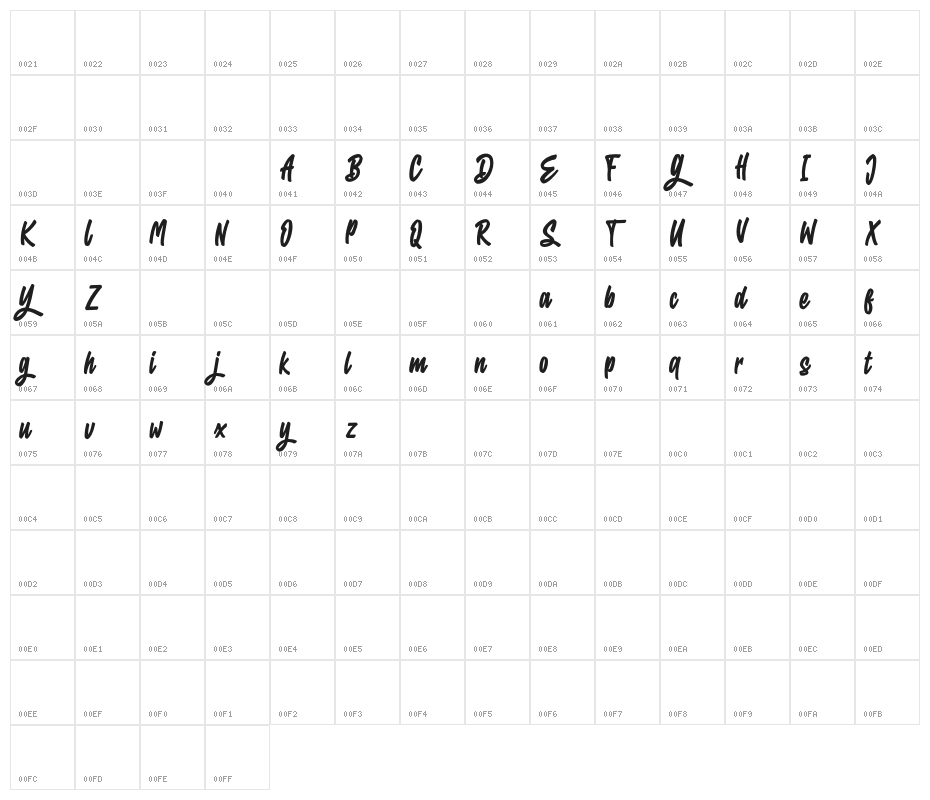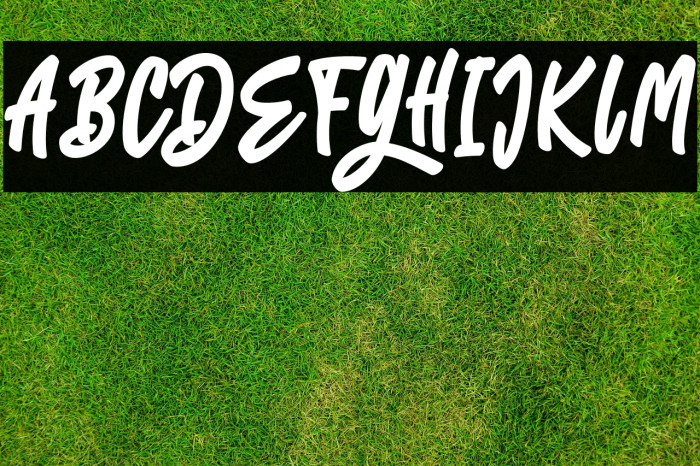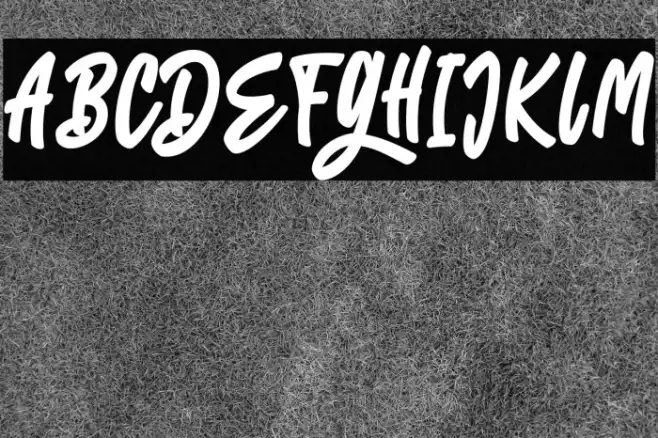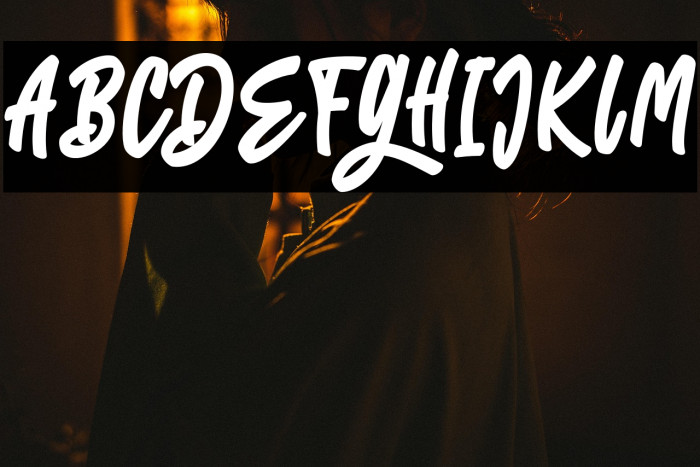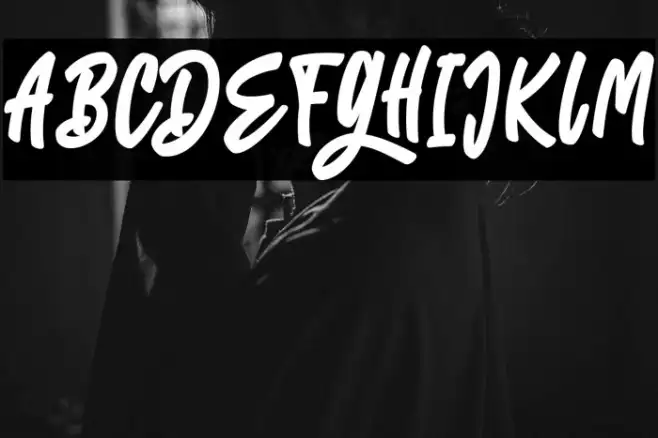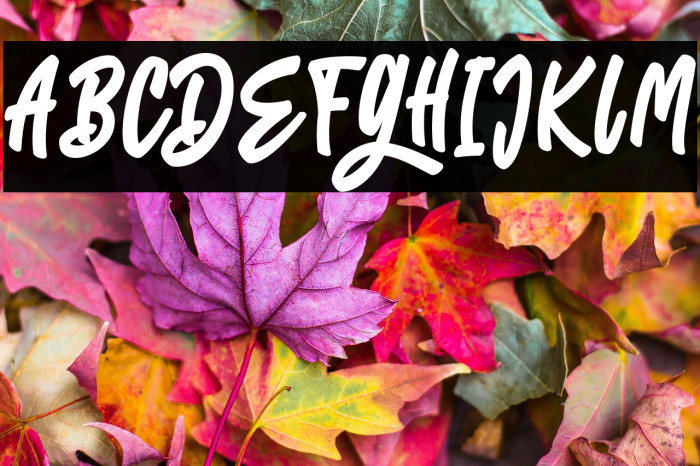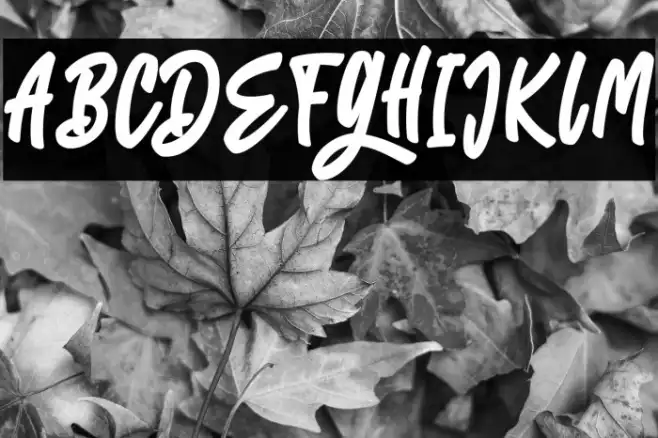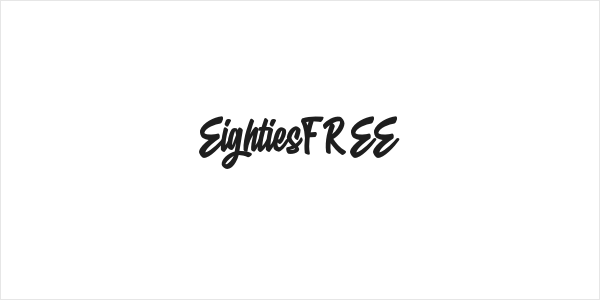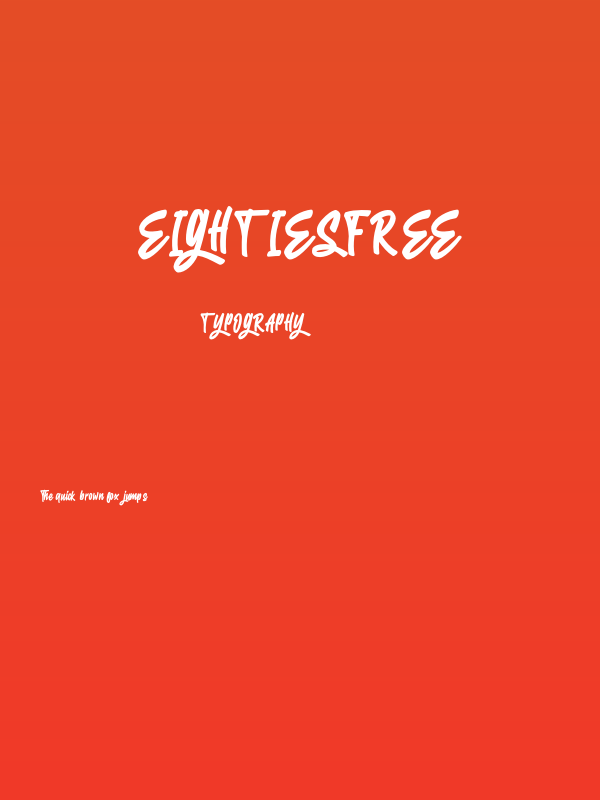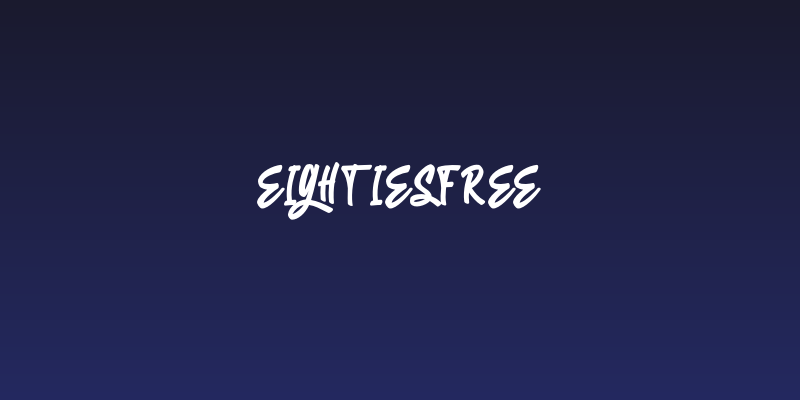
EightiesFREE Font
EightiesFREE Description
This font exudes a bold and dynamic energy, reminiscent of the vibrant styles of the 1980s. The letters are crafted with a brush-like appearance, giving them a handwritten and artistic flair. The uppercase characters are particularly striking, with a strong presence and fluidity that suggests movement. The lowercase letters maintain this energetic style, with a slightly more compact form. The numbers and special characters are consistent with the overall aesthetic, ensuring a cohesive look across all text. This font's unique style makes it ideal for projects that require a touch of retro flair and creativity.
| Overall Style | Retro, Artistic |
| Proposed Projects | Ideal for retro-themed designs, posters, music album covers, and creative branding projects. |